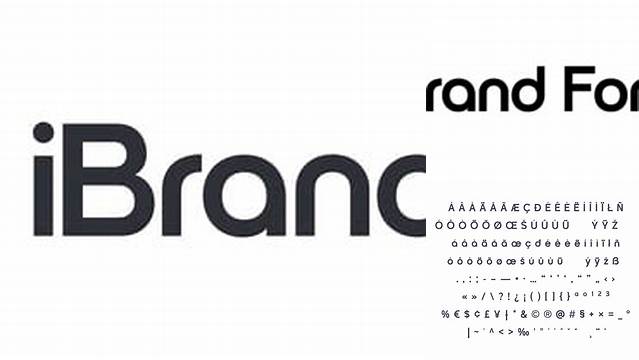
IBrand Logo Font: Free Download Options & Alternatives
Let's dive into the world of iBrand logo fonts and explore your options for finding them for free, plus some cool alternatives. Creating a brand identity is crucial, and the logo is a significant part of that. A logo's font can communicate a brand's personality, so it's essential to choose wisely. Whether you're starting a new business or revamping an existing brand, finding the right font is a key step. We'll go over how to find iBrand-like fonts, where to download them (legally, of course!), and even some alternative font ideas to make your logo pop. Get ready to level up your branding game!
iBrand Font Identification
Identifying the exact font used in the iBrand logo can be tricky, but it's a good starting point. Usually, companies invest in custom fonts or modify existing ones to create a unique brand identity. So, what do you do if you want something similar? Online tools can help! Websites like WhatTheFont and Font Squirrel's Font Identifier allow you to upload an image of the logo, and they'll try to match the font or suggest similar ones. Keep in mind that the results aren't always perfect, especially if the font has been heavily modified. But, they're a great way to narrow down your search. Understanding the characteristics of the iBrand font β is it sans-serif, serif, modern, or script? β will guide you toward the closest matches. Pay attention to the font's weight, width, and overall style.
Font Alternatives Inspired by iBrand
If you're having trouble finding the exact iBrand logo font for free, don't worry! There are plenty of alternatives that can capture a similar feel. Think about what aspects of the iBrand font you like β is it the clean lines, the modern look, or the bold presence? Use those qualities to guide your search for alternative fonts. For a modern sans-serif look, consider fonts like Montserrat, Lato, or Open Sans, all available on Google Fonts. If you're after something with a bit more personality, explore fonts like Raleway or Exo 2. Don't be afraid to experiment with different fonts and combinations until you find the perfect match for your brand. Remember, your logo is a visual representation of your brand, so choose a font that reflects your values and resonates with your target audience. Sometimes, a slight tweak or customization of a free font can give you the unique look you're after, without breaking the bank.
Customizing Fonts for a Unique Logo
Taking a free font and making it your own is a great way to create a unique logo without the expense of a custom typeface. Font editing software like FontForge (free and open-source) or Glyphs (paid) allows you to modify existing fonts to better suit your needs. You can adjust the letter spacing, kerning, and even the shapes of individual characters. Try making subtle changes to the font's weight, adding a slight slant, or modifying the serifs to create a custom look. Another option is to combine elements from different fonts to create a hybrid typeface. For example, you could use the basic structure of one font and incorporate the unique details of another. Remember to keep the modifications subtle and consistent to maintain readability and a professional appearance. Always check the font's license before making any modifications, as some licenses may restrict derivative works. With a little creativity and some font editing skills, you can transform a free font into a distinctive logo element that sets your brand apart.
The Psychology of Font Choices
Choosing the right font for your iBrand logo isn't just about aesthetics; it's also about psychology. Different fonts evoke different emotions and associations, so it's essential to consider the message you want to convey. Serif fonts, with their traditional serifs (the little feet at the end of strokes), often convey a sense of authority, tradition, and trustworthiness. Sans-serif fonts, on the other hand, tend to feel more modern, clean, and approachable. Script fonts can add a touch of elegance and sophistication, but they should be used sparingly to avoid readability issues. Bold fonts command attention and convey strength, while lighter fonts can create a sense of delicacy and refinement. Consider your target audience and the values of your brand when choosing a font. A playful, whimsical font might be perfect for a children's brand, but it would be out of place for a financial institution. Research the psychology of different font styles to make an informed decision that aligns with your brand identity. Choosing fonts is like picking the right outfit for your brand β you want to make a good impression!
Font Pairing for Brand Consistency
Creating a consistent brand identity involves more than just choosing a single font for your logo. Font pairing, the art of combining two or more fonts that complement each other, can add depth and visual interest to your branding materials. When pairing fonts, it's essential to choose fonts that have contrasting styles but still work well together. A common approach is to pair a serif font with a sans-serif font, using one for headlines and the other for body text. Avoid pairing fonts that are too similar, as this can create a sense of visual monotony. Experiment with different font combinations until you find a pairing that reflects your brand's personality and enhances readability. Tools like FontPair and Typewolf can provide inspiration and suggestions for font pairings. Consistency is key when it comes to font pairing. Use the same font combination across all your branding materials, from your logo and website to your business cards and marketing collateral. This will help create a cohesive and recognizable brand identity. Font pairing is like creating a harmonious duet β the fonts should complement each other, not compete.
The Importance of Readability
While aesthetics are important, readability should be the top priority when choosing a font for your iBrand logo. A beautiful font is useless if it's difficult to read. Consider the size at which your logo will be displayed and choose a font that remains legible at those sizes. Avoid fonts with overly intricate details or thin strokes, as these can become illegible when scaled down. Pay attention to the letter spacing and kerning of the font, as these factors can also affect readability. Test your logo on different devices and screen resolutions to ensure it remains legible in all contexts. Get feedback from others on the readability of your logo font. What might seem clear to you may not be as clear to others. Readability is especially important for your website and marketing materials. Choose fonts that are easy on the eyes and don't cause strain or fatigue. Remember, your goal is to communicate your message effectively, and a readable font is essential for achieving that goal. Readability is like clear communication β if people can't understand you, they're not going to listen.
Trending Font Styles in Logo Design
Staying up-to-date with trending font styles can help you create a logo that feels modern and relevant. In recent years, several font trends have emerged in logo design, including: Geometric sans-serif fonts (clean, minimalist, and versatile), hand-drawn fonts (add a personal and authentic touch), bold and impactful fonts (command attention and convey confidence), and variable fonts (offer flexibility and customization). Keep in mind that trends come and go, so it's important to choose a font that will stand the test of time. Don't blindly follow trends without considering your brand's identity and target audience. Research current font trends and see how they might apply to your brand. Browse logo design galleries and inspiration websites to see how other brands are using fonts in their logos. Experiment with different font styles and see what resonates with you. Remember, your logo is a visual representation of your brand, so choose a font that reflects your values and resonates with your target audience. Trending fonts are like the latest fashion β they can be fun to experiment with, but it's important to choose what suits you best.
Environmental Impact of Font Design Choices
Considering the environmental impact of font design choices is becoming increasingly important as brands strive for sustainability. Choose eco-friendly fonts that are designed with minimal resource consumption. Consider using variable fonts, which can reduce file sizes and bandwidth usage. Support font foundries that prioritize sustainable practices and minimize their environmental footprint. Use your font choices to communicate your brand's commitment to sustainability. Environmental impact is like a footprint β it represents the effect of your choices on the planet.